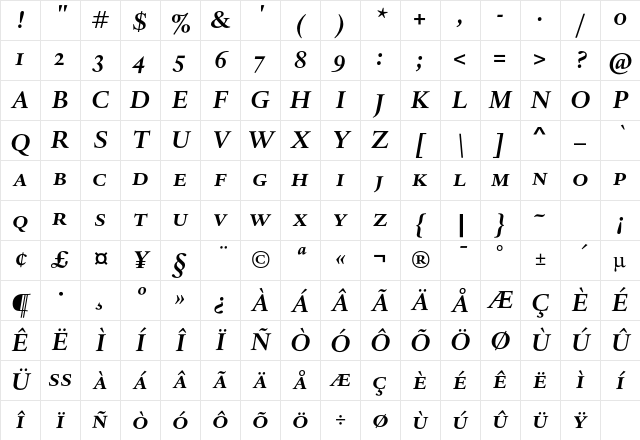
DTLHaarlemmerDCaps BoldItalic
Design Context for DTLHaarlemmerDCaps
DTLHaarlemmerDCaps is a composed and adaptable typeface that performs quietly and consistently across a wide range of design contexts. The slanted form adds forward momentum and visual energy. Its bold stroke weight gives it real presence on the page.
Pro Tip: Use DTLHaarlemmerDCaps for emphasis, pull quotes, and subheadings where its slanted energy can add rhythm to the layout.